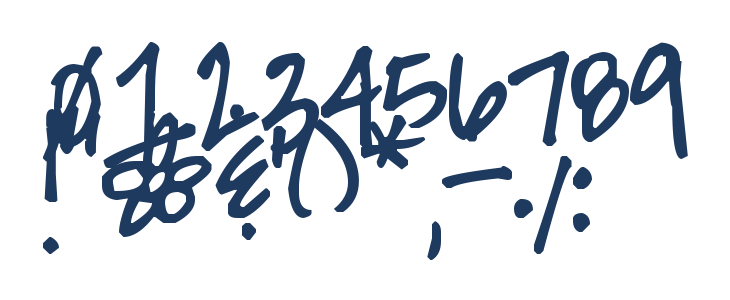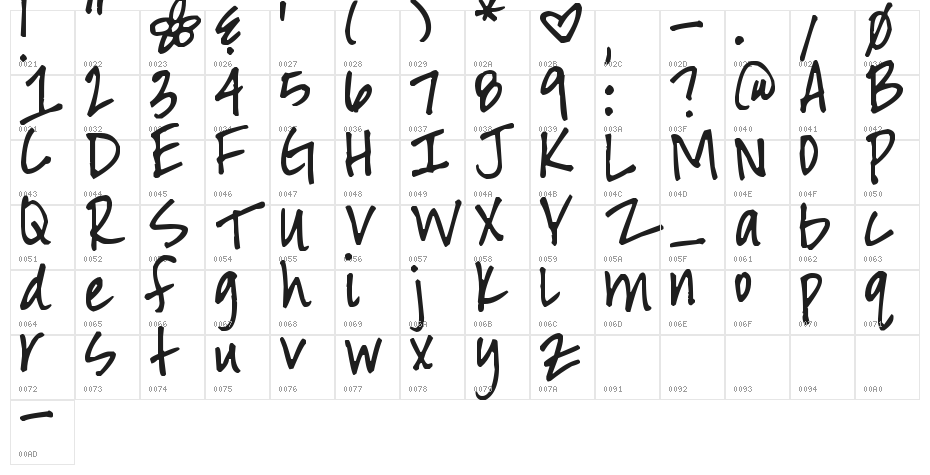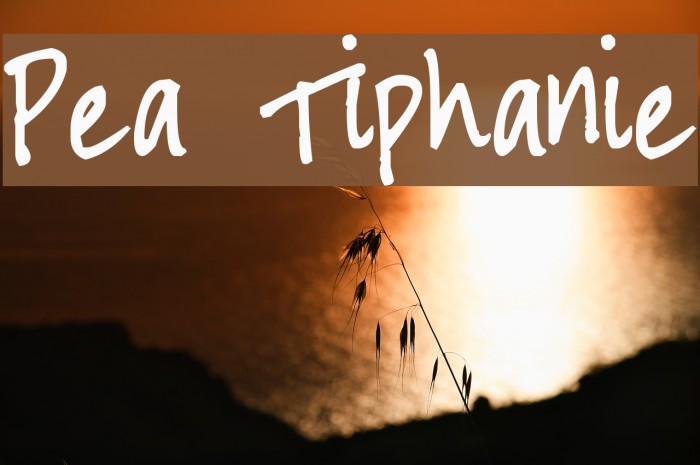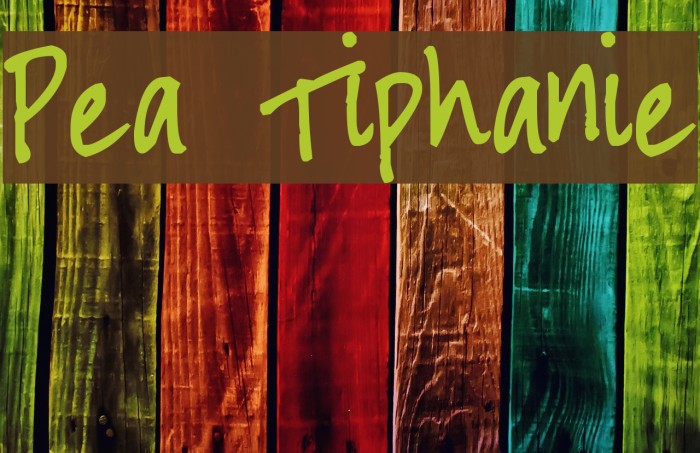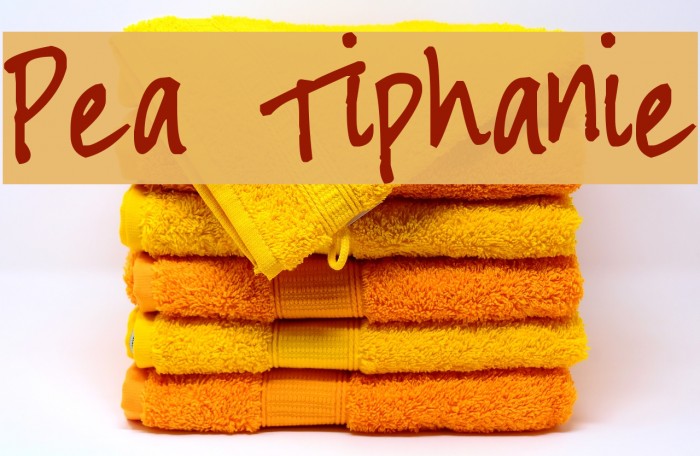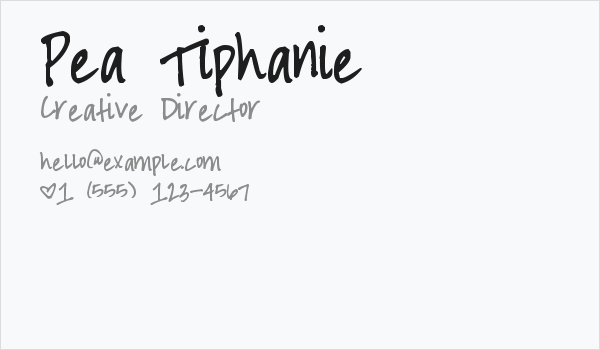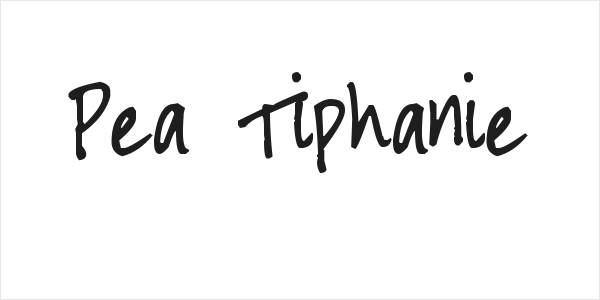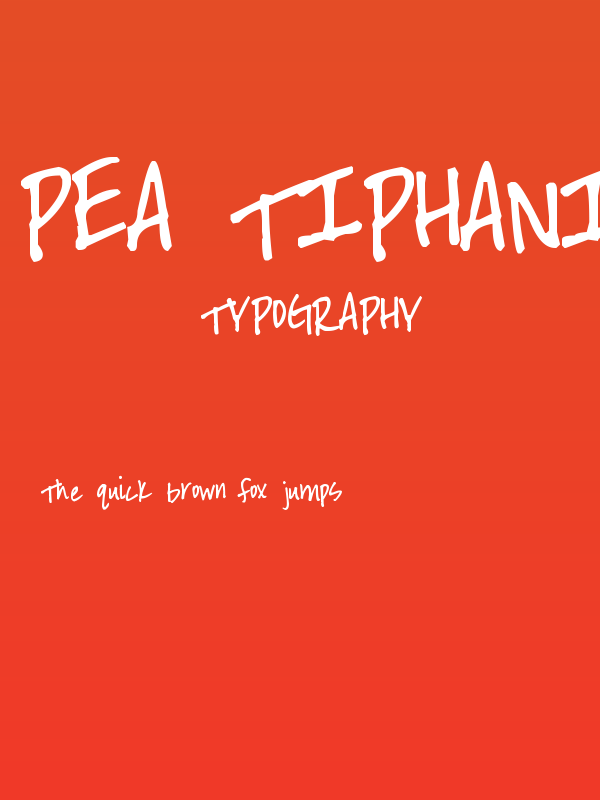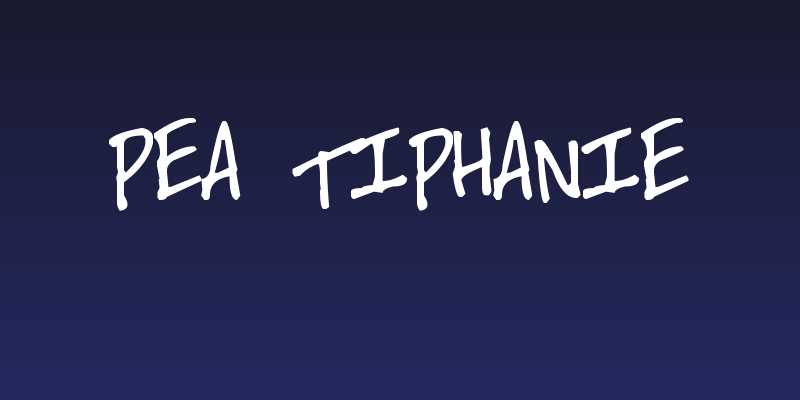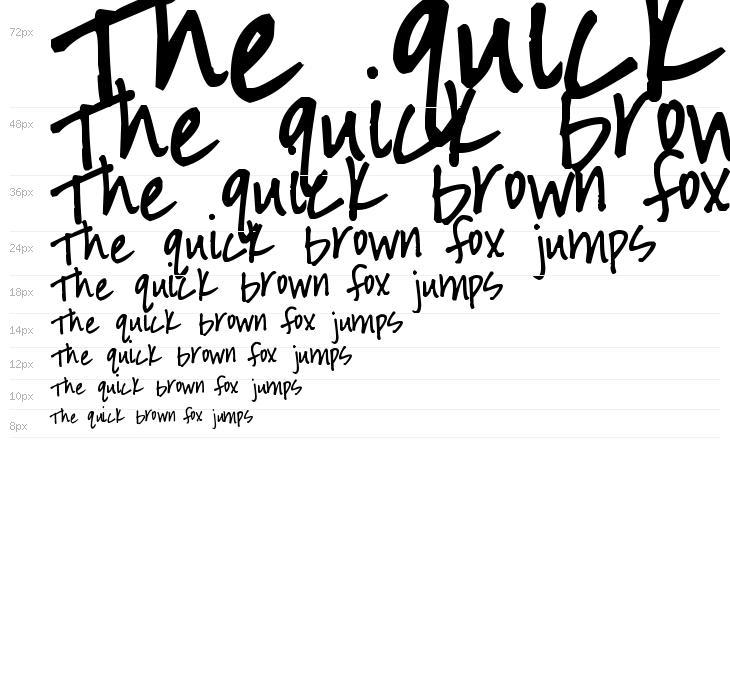
Pea Tiphanie Font
Pea Tiphanie Description
This font exudes a casual and playful handwritten style, characterized by its fluid and natural strokes. The letters are slightly slanted, giving it a dynamic and lively appearance. The uppercase and lowercase letters maintain a consistent flow, while the numbers and special characters blend seamlessly with the overall design. The strokes vary in thickness, adding a personal touch that mimics real handwriting. This font is perfect for projects that require a personal, informal, and approachable feel.
| Use Case | Logos, Headlines, Informal Text |
| Proposed Projects | Ideal for greeting cards, personal notes, informal invitations, and creative projects that require a personal touch. |